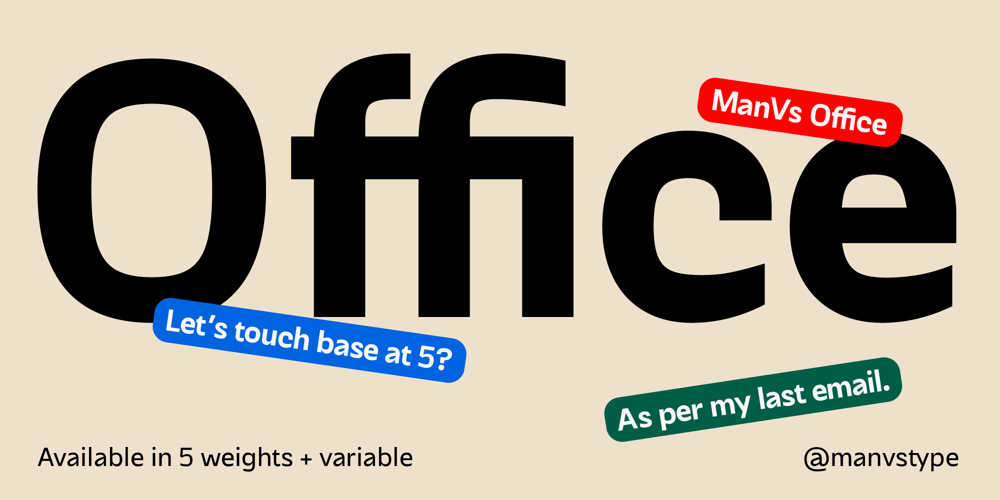
MV Office Font Family was designed by Manav Dhiman and published by ManVsType. MV Office contains 6 styles and family package options. ManVs Office, the typeface that puts the “sans” in “sans-serif”! This no-nonsense font is perfect for any professional setting that needs to get down to business, but still wants to have a bit of fun. With squarish counters and round outer forms, it’s like the best of both worlds – the dependable, rule-abiding worker and the quirky, unpredictable office jester all rolled into one.With some unexpected shapes like the unconventional x, ManVs Office is sure to turn heads and command attention in any setting.